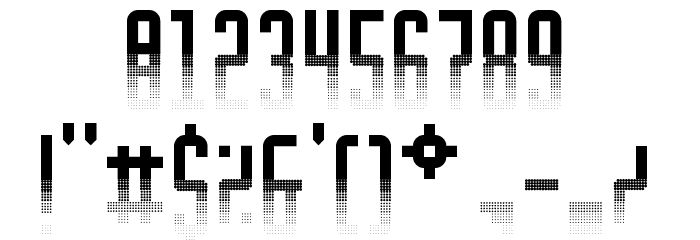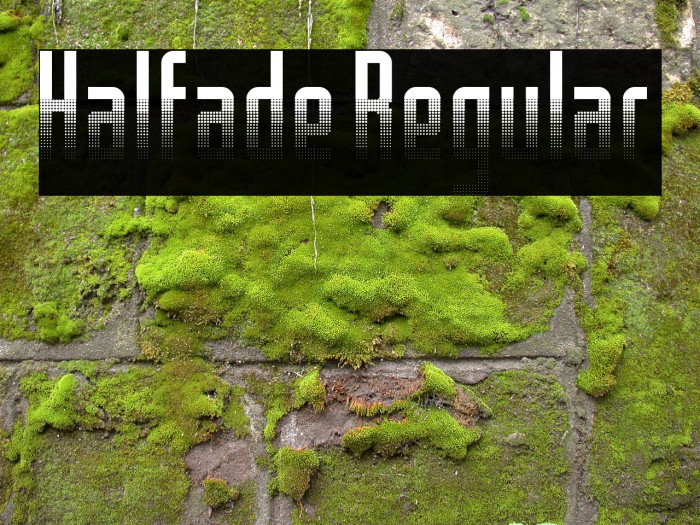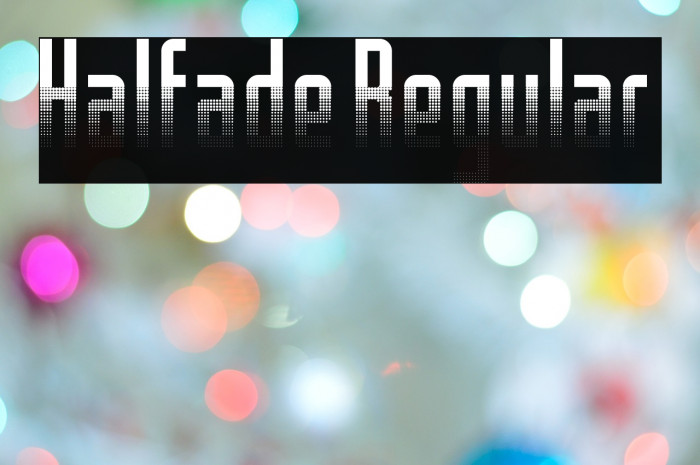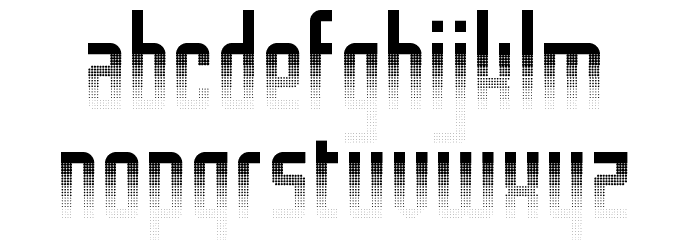
Halfade Regular Font
Halfade Regular Description
This font features a unique gradient effect, transitioning from solid black at the top to a dotted pattern towards the bottom. The characters are bold and geometric, with a modern and digital aesthetic. The uppercase and lowercase letters maintain a consistent style, emphasizing vertical lines and sharp angles. Numbers and special characters follow the same design principles, ensuring uniformity across all glyphs. The font's distinct style makes it ideal for projects that require a futuristic or tech-inspired look.
A bold, geometric font with a gradient effect and digital aesthetic from Uncategorized fonts.
- Proposed Projects: Ideal for digital art, tech branding, futuristic posters, and video game graphics.